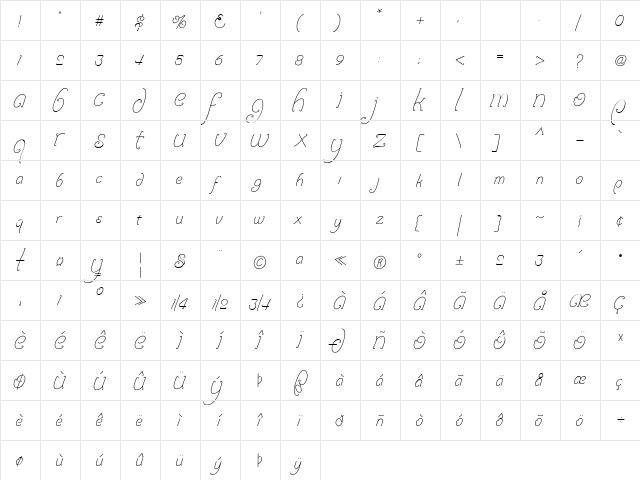
Follower Regular
| Foundry | Vaiminit Studio |
| Designer | Vaiminit |
Design Context for Follower Typeface
Follower takes a measured approach to typography — its balanced proportions and neutral character make it a reliable workhorse for both digital and print work.